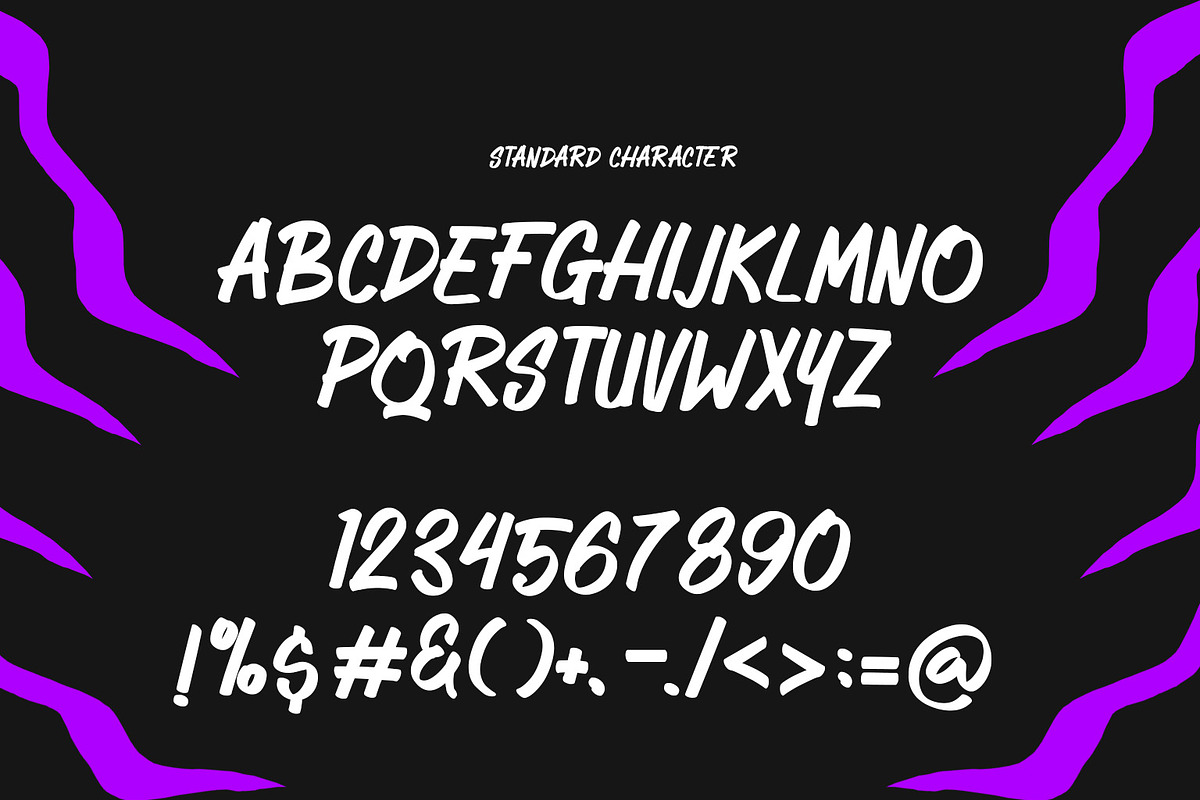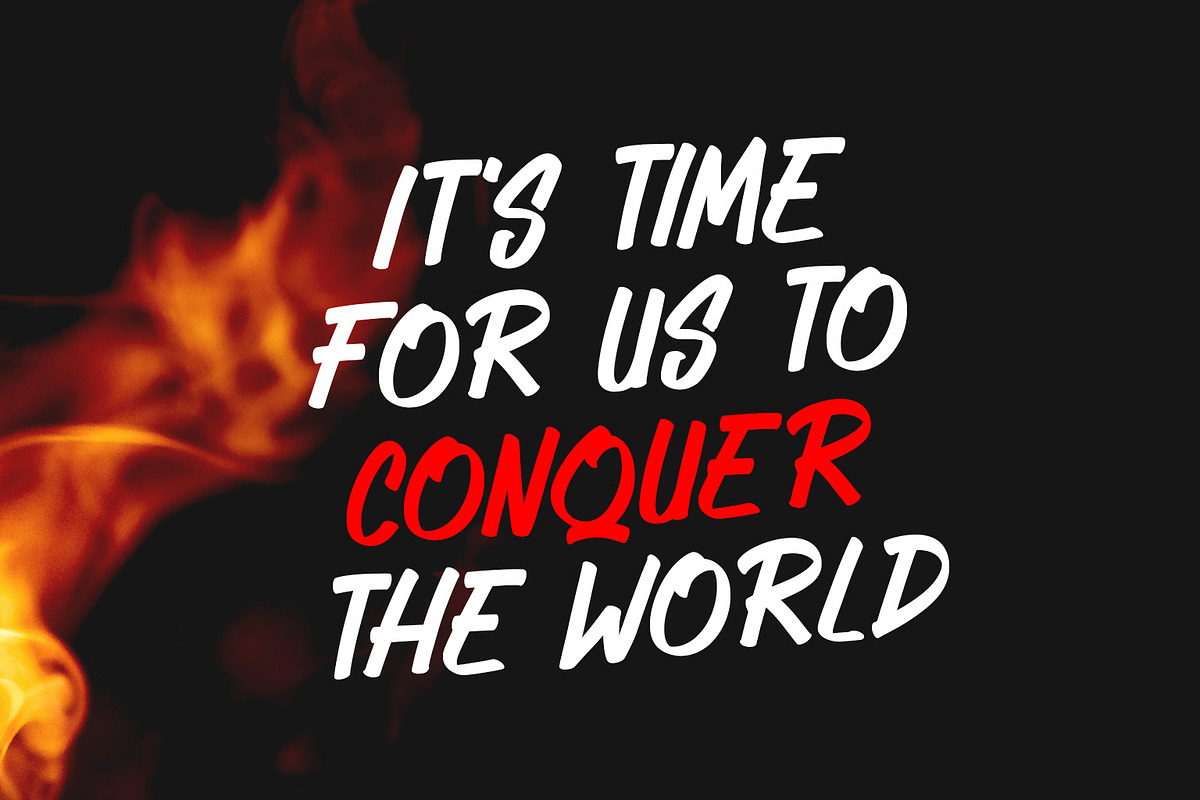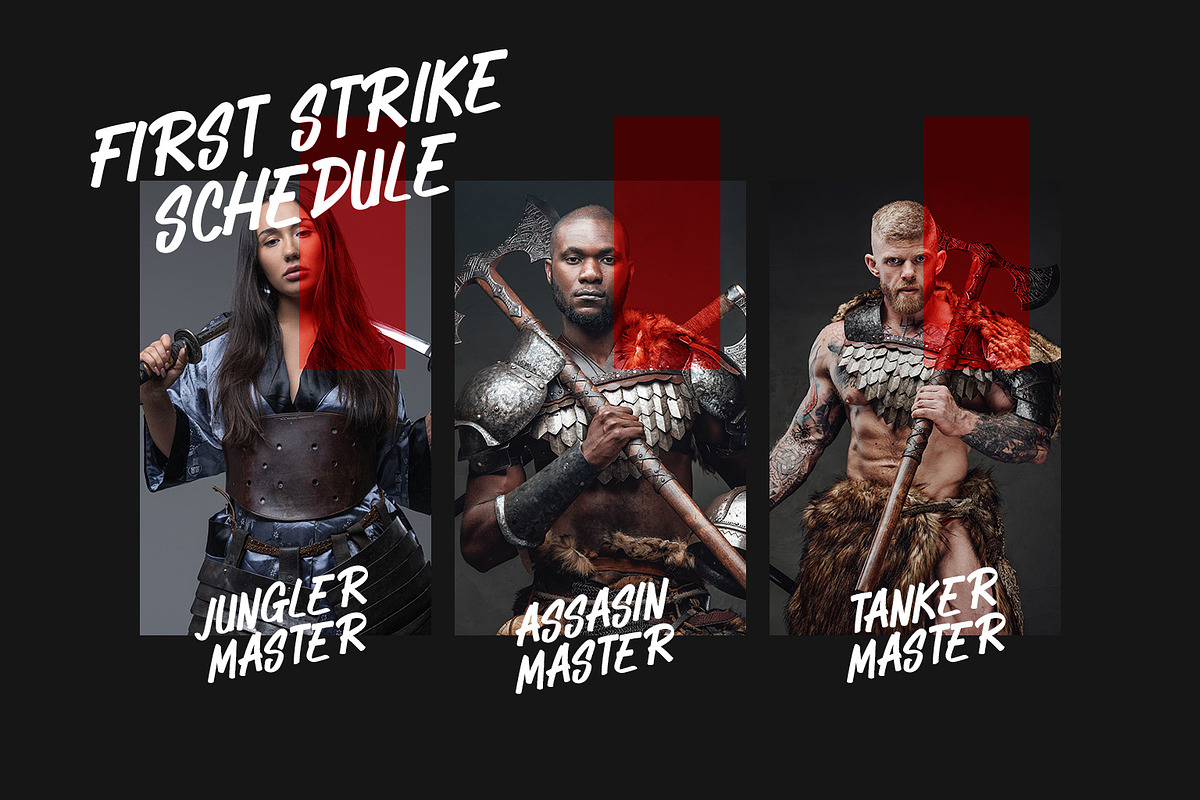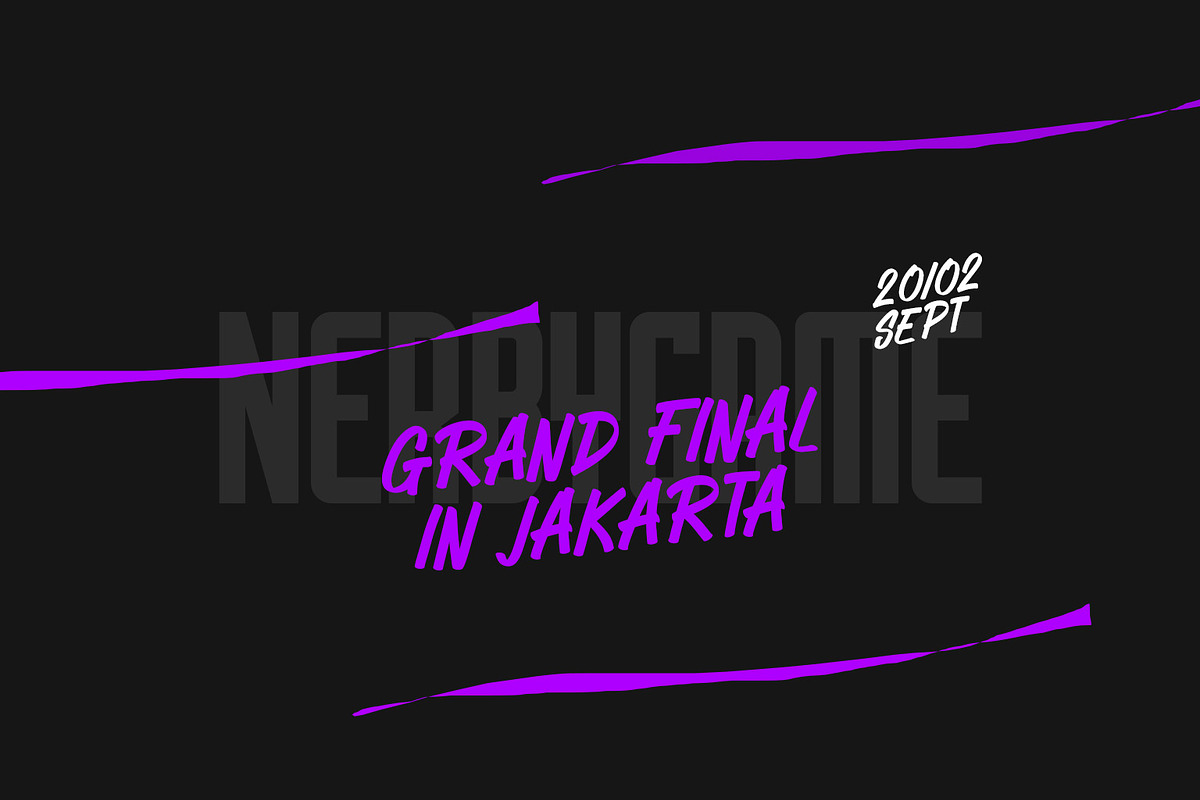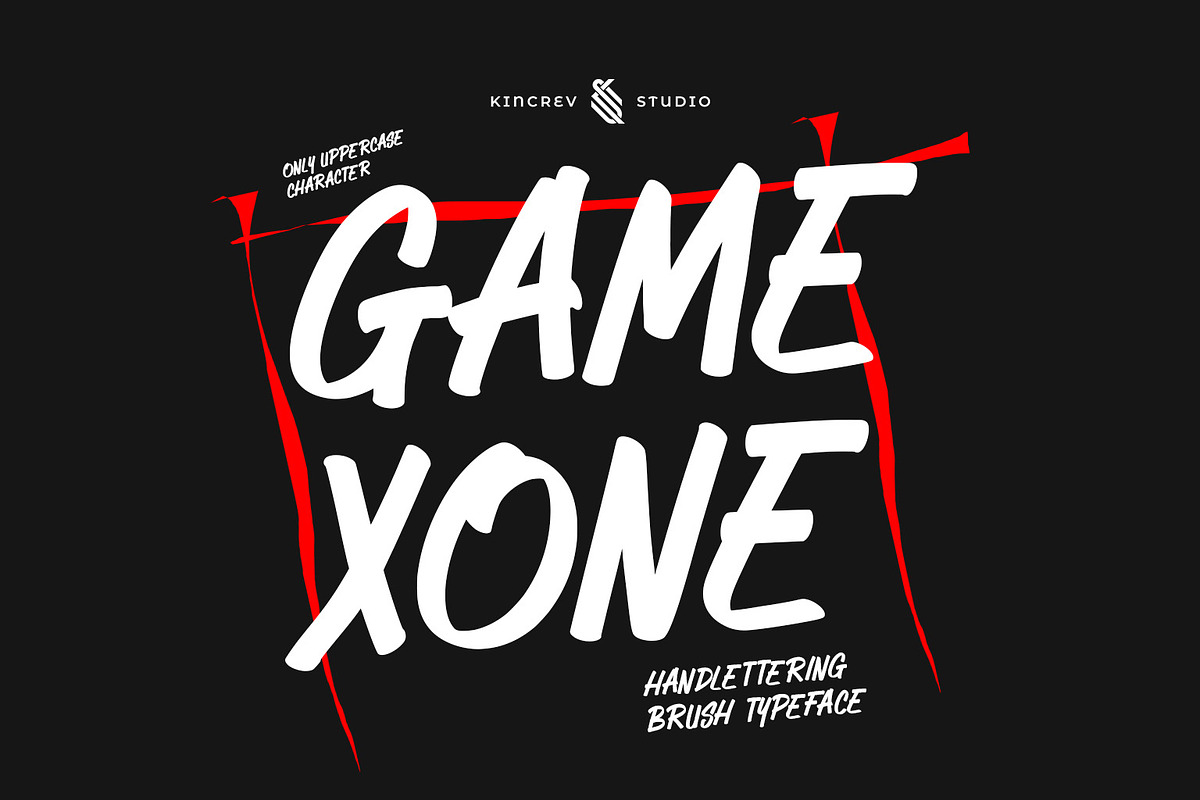
GAMEXONE - Handlettering Brush
Hello, Everyone! Ready to make your branding design outstanding? If you need to create a stylist, bold, and creative look for your business, work on a poster for an event, or whatever your projects are, GAMEXONE - Handlettering Brush Typeface is the perfect one for you.
GAMEXONE, a typeface font is font for you to get your designs with stylist, bold, and creative look. It is made in Uppercase Regular & Stylistic Alternates which are easy on the eyes and nice to look at, and easy to read. This font is designed to bring your brandings to life and add a touch of sporty modern, bold, fun and style.
GAMEXONE fits for any design projects, such as posters, banners, logos, book covers, album covers, quotes, invitations, greeting cards, name cards, headings, printed products, merchandise, social media, etc. Find out more ways to use this font by taking a look at the font preview.